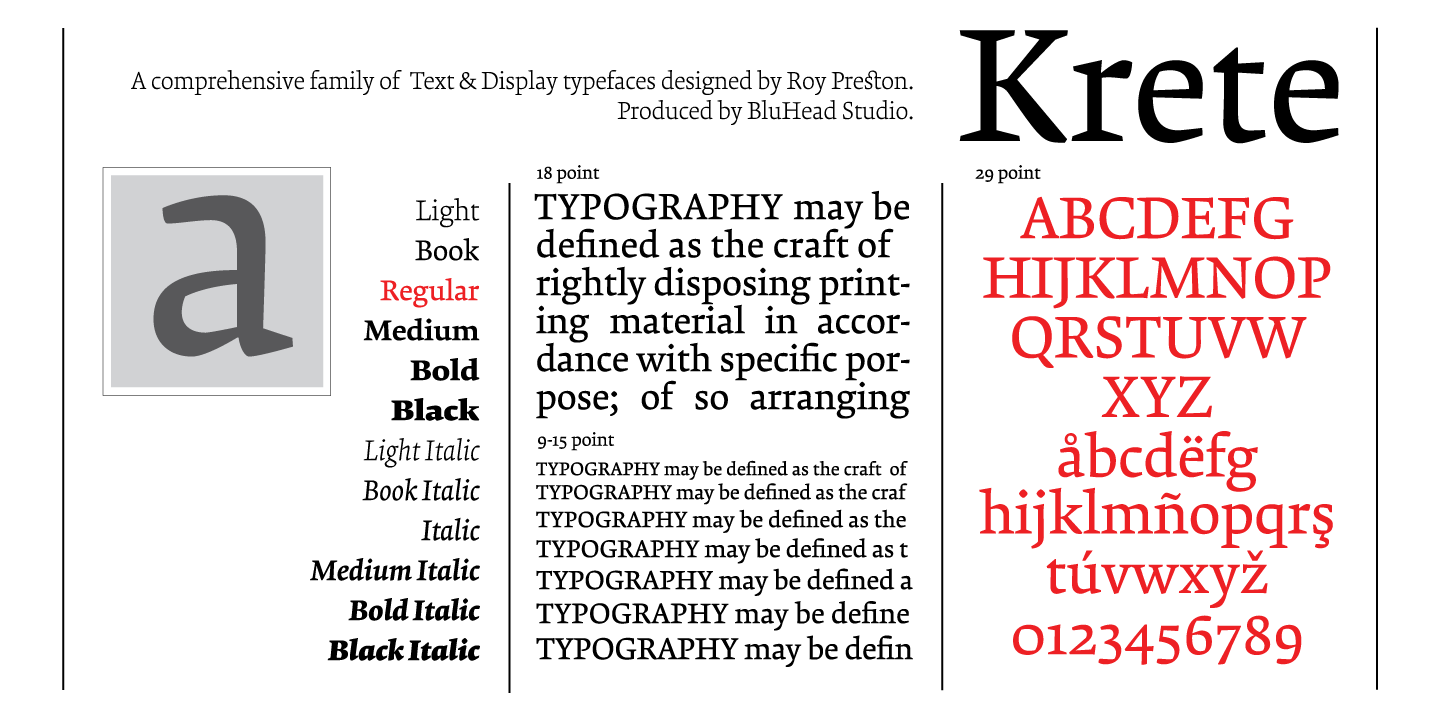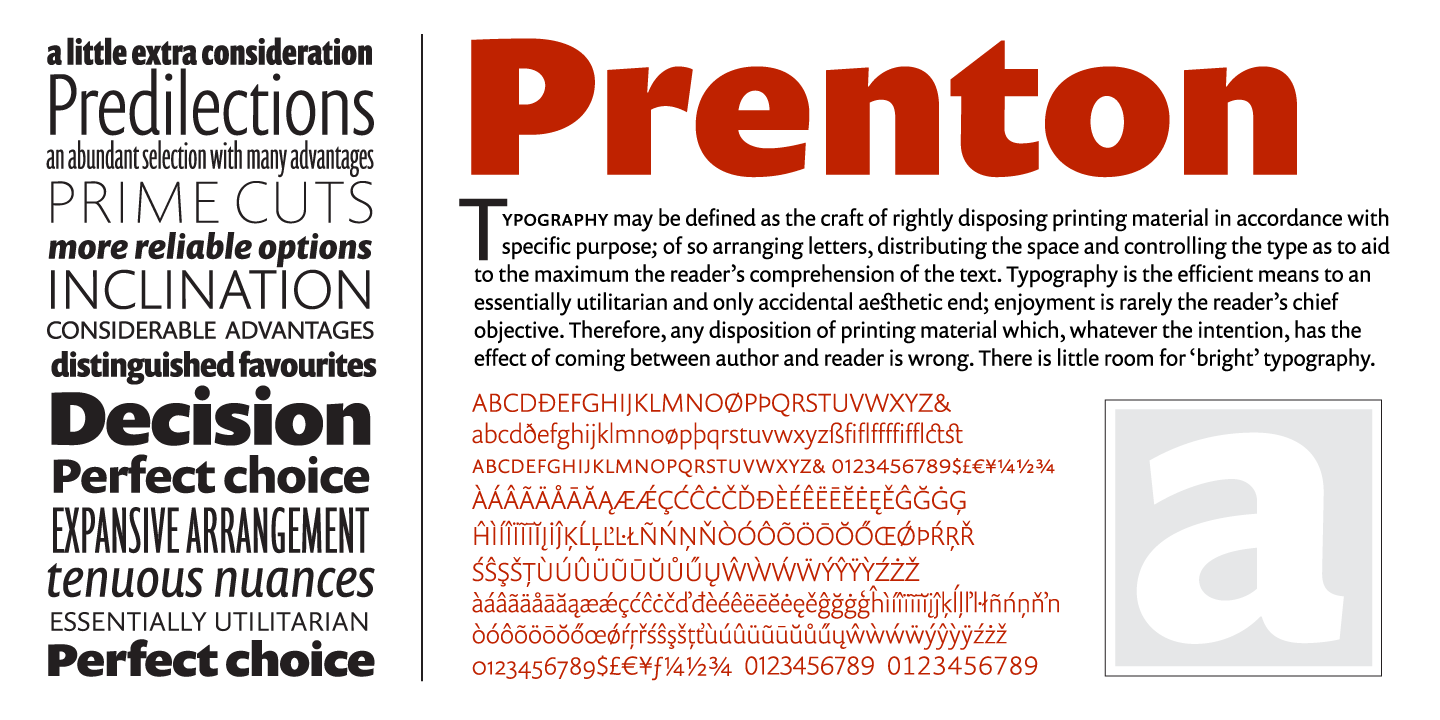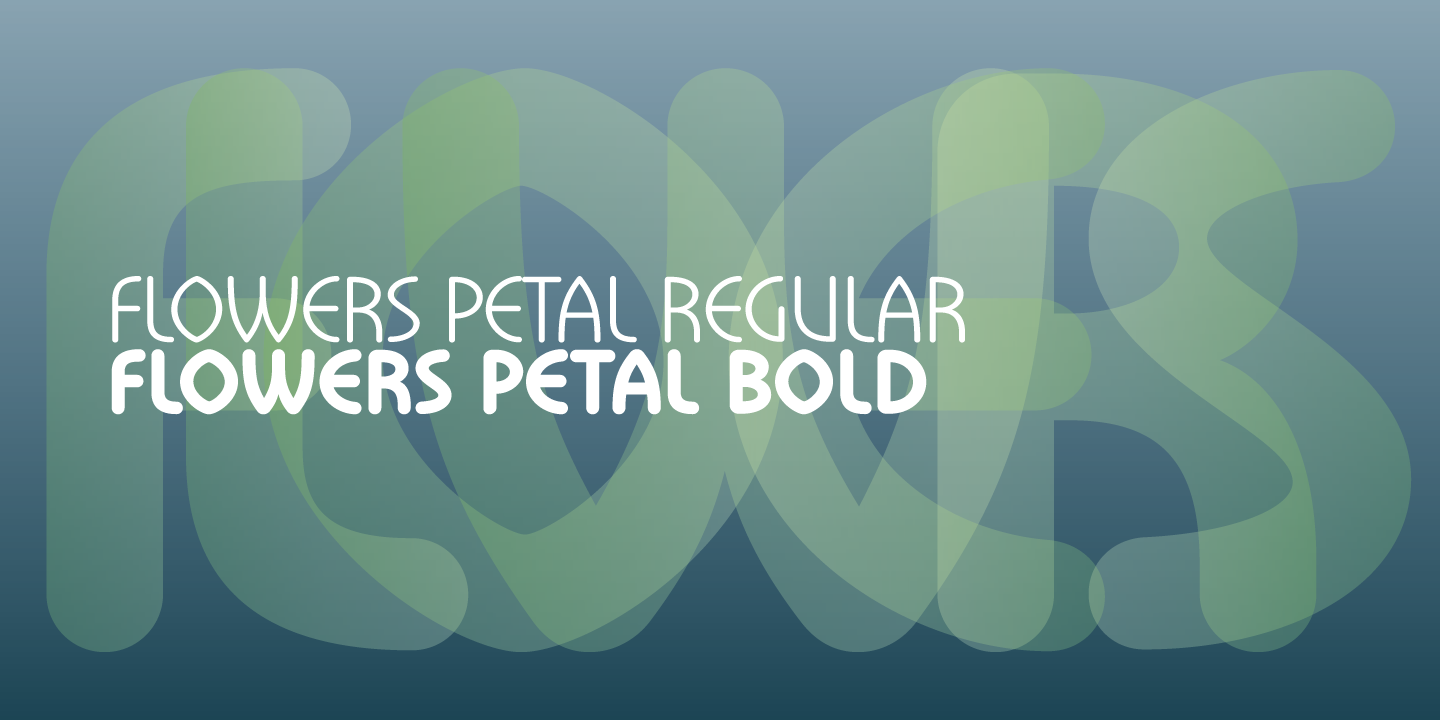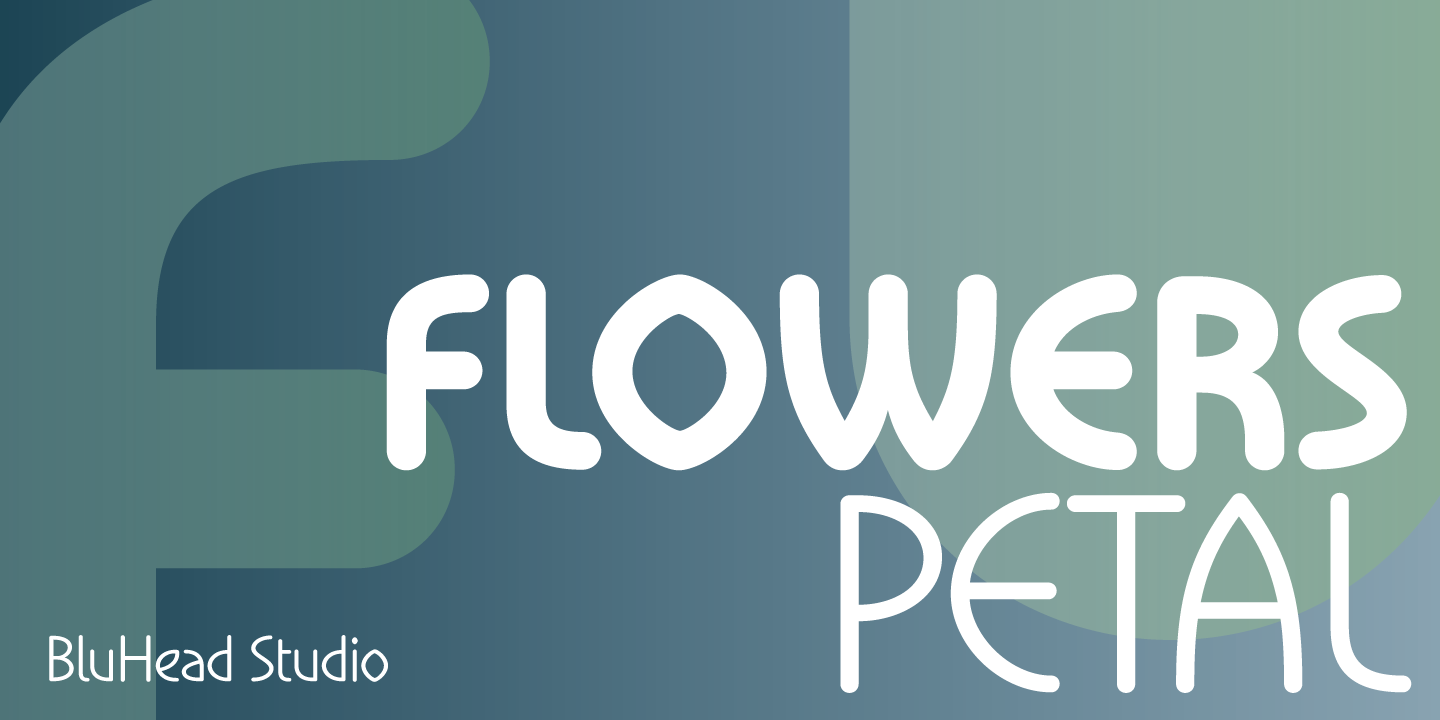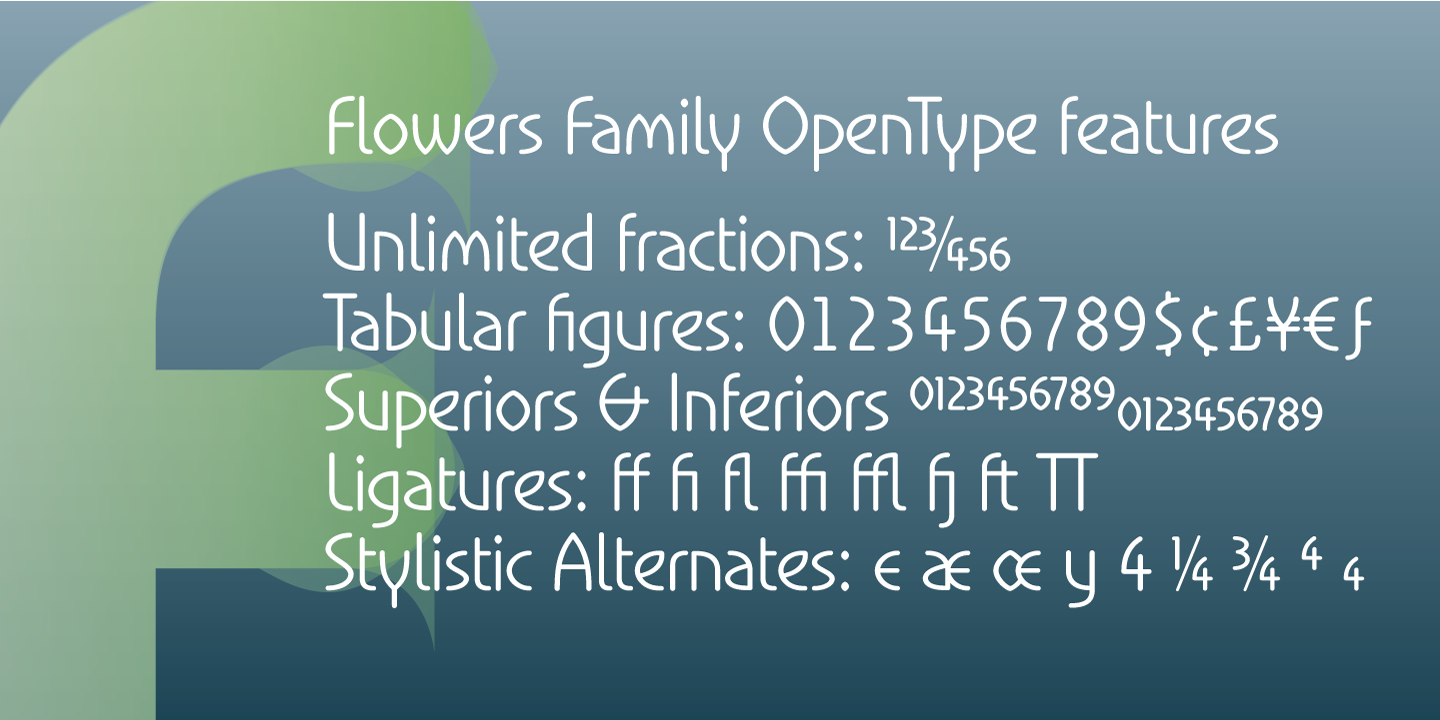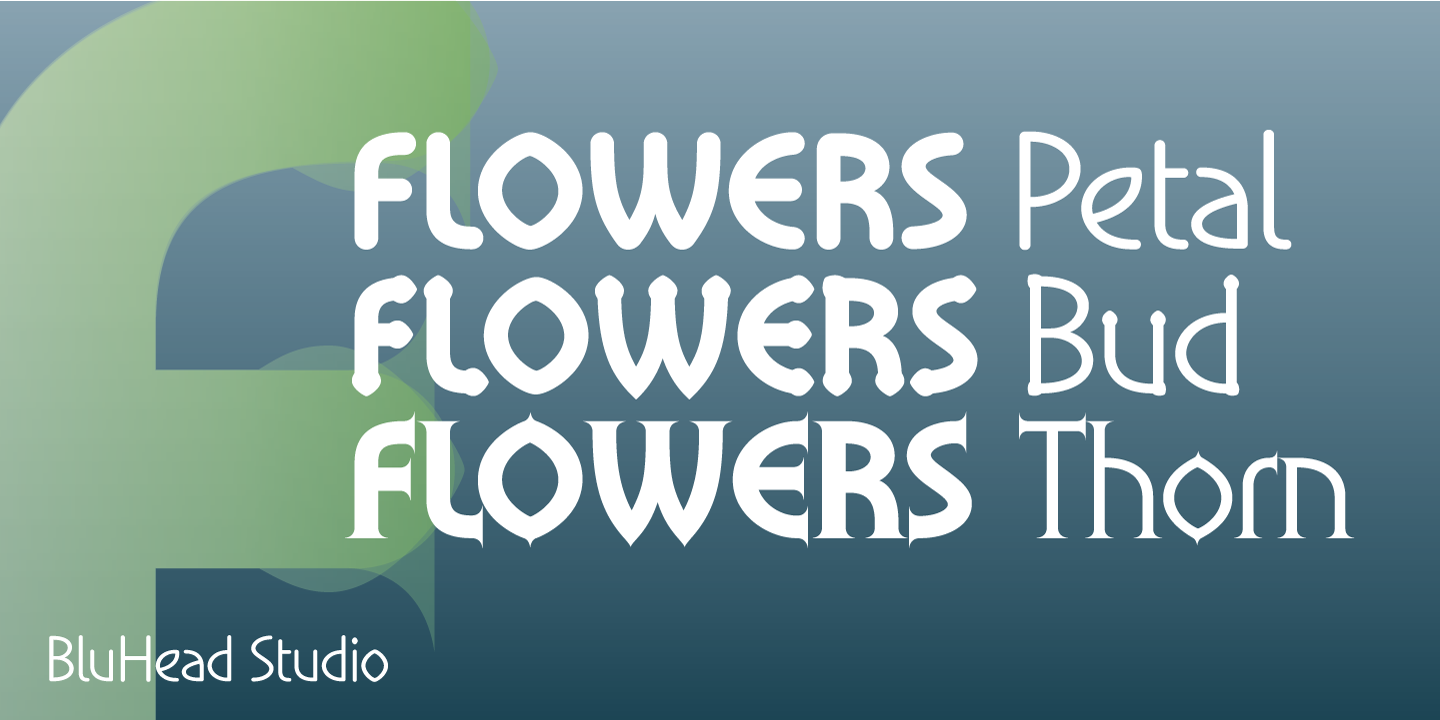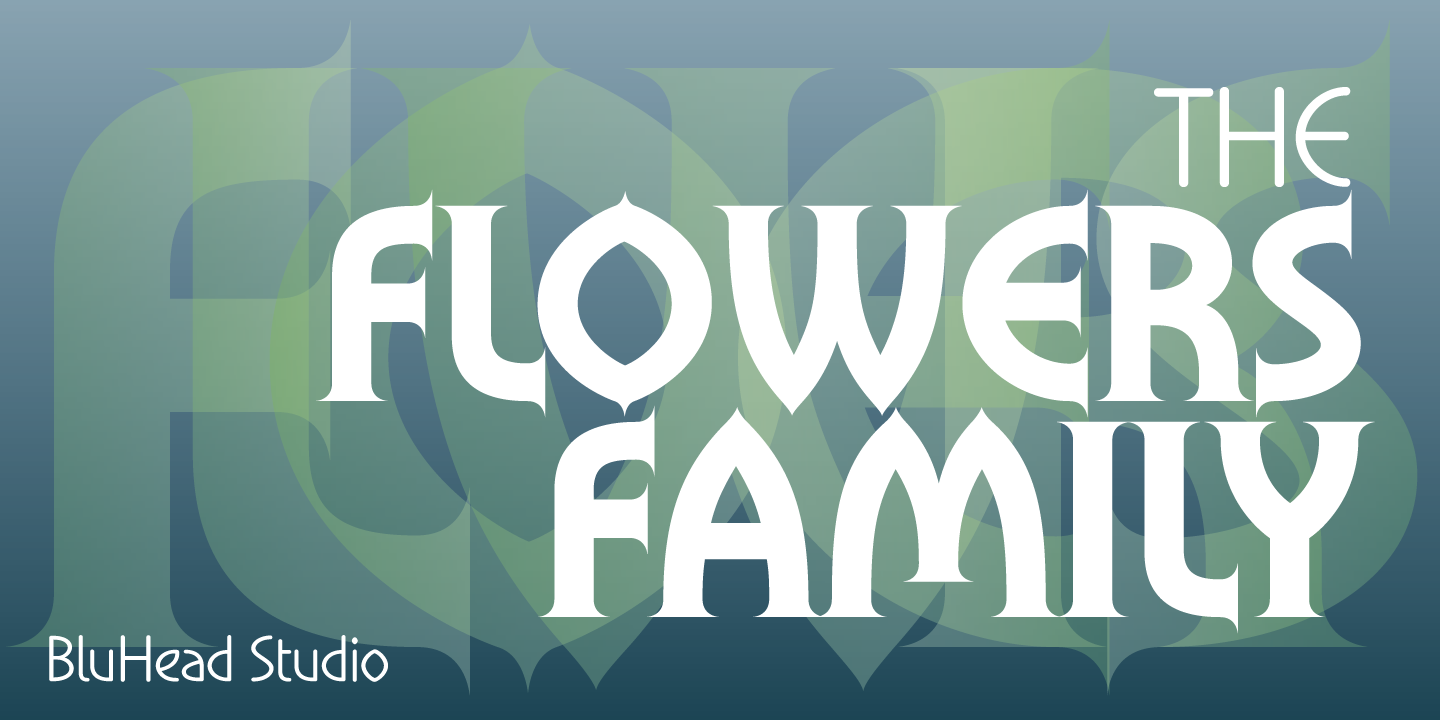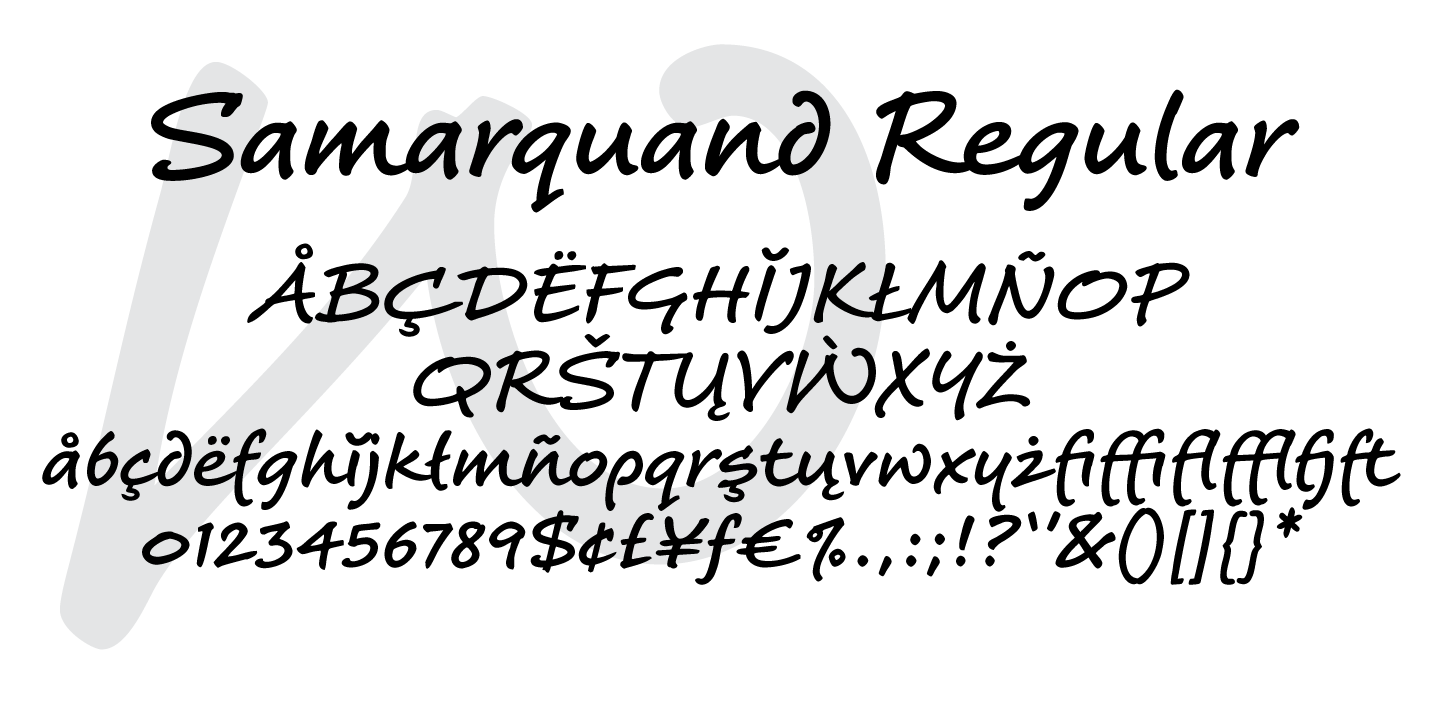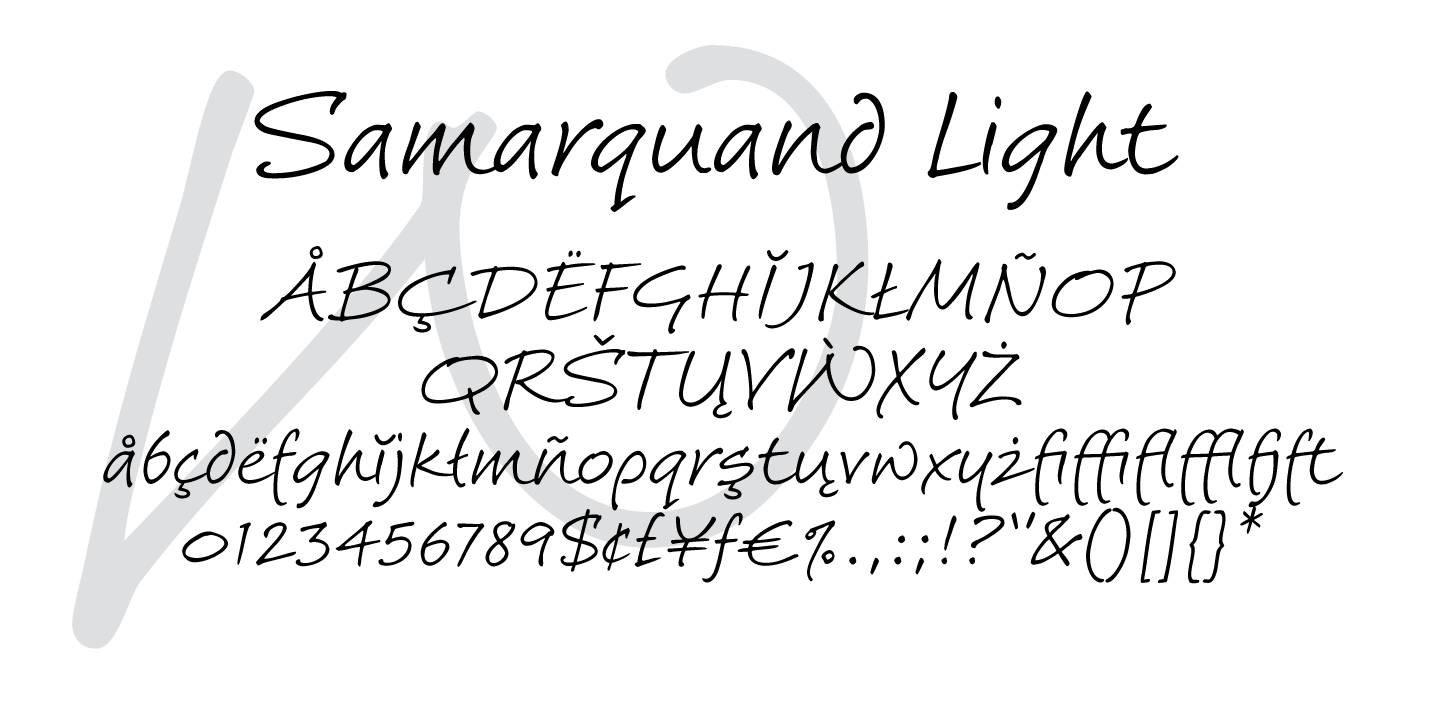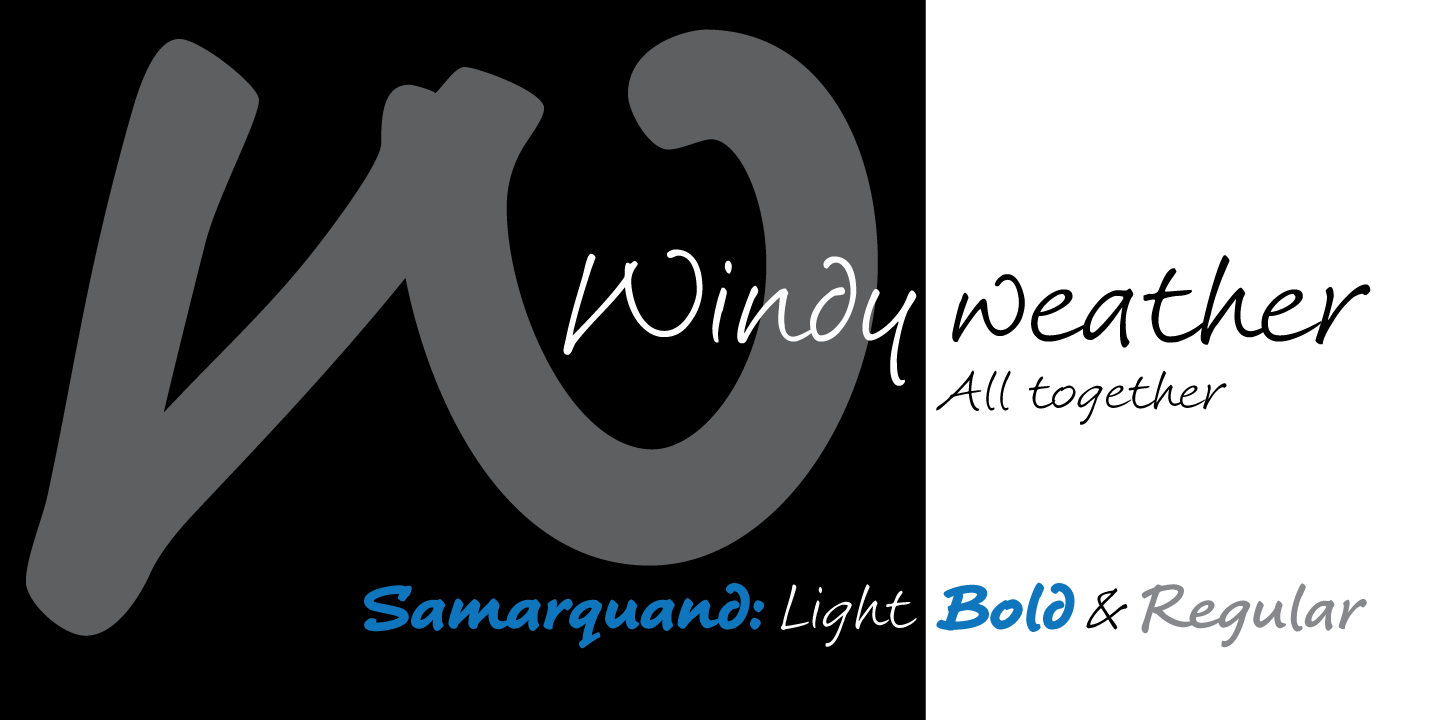
Roy Preston of United Kingdom
Born: London
Roy Preston, of Preston Graphics, was born in London and enjoyed a career covering all of the facets of advertising, where he nurtured his love of type. He worked as an illustrator (watercolours and cartoons), a graphic designer, an art director, and finally a creative director.
Roy’s artistic work ranges from whimsical to abstract to realistic. His mediums cover watercolor, pen and ink, magic marker, and computer graphics. Roy’s skills with each area of design demonstrate his ability to show contrasts in form, from the free style of his cartoons, to the fine detail of his watercolor paintings, to his clean and elegantly rendered type designs, of which several, in 1999, received a Gold Award at the 1999 Morisawa International Type Design competition (Latin Category – Prentis family of Roman and Sans).
Roy, now retired and living with his family of two cats, continues to explore his creative imaginings while abstract painting and designing typefaces on his Mac.
Fonts by Roy Preston
Comixed RP, Prenton RP, RoyHand RP